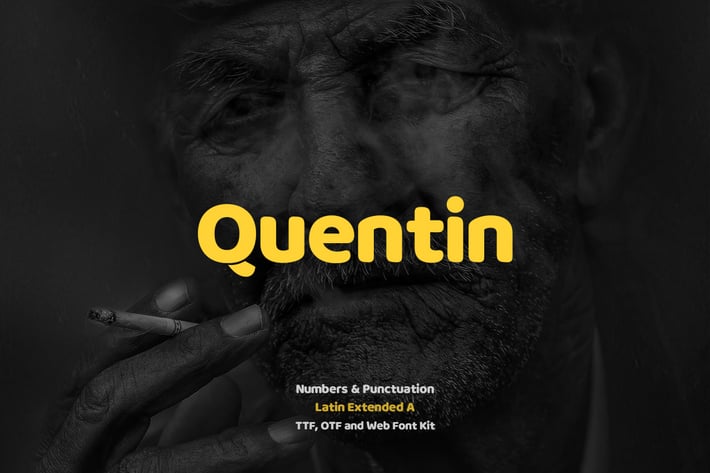
Quentin Pro Typeface + Webfonts
Quentin Pro Typeface
Quentin Pro is a Modern Sans Serif typeface very much suitable for Film Posters, headlines, Block letter, Subheading, Logo Designs, Big Banners. Creative & Decorative Typography Web Designs.
Quentin Pro is perfectly suited for eye-catching headlines. Its clean appearance and mid-weight make it a wonderful candidate for being paired with more decorative, elaborate subheading fonts.